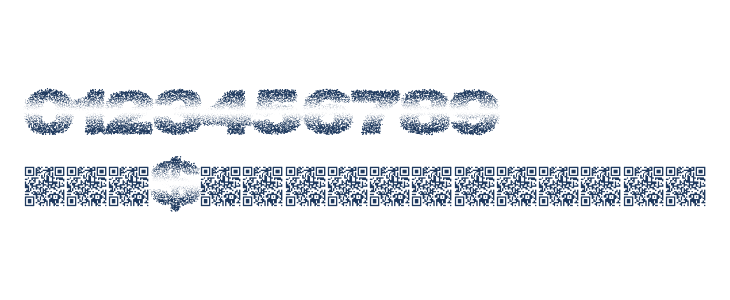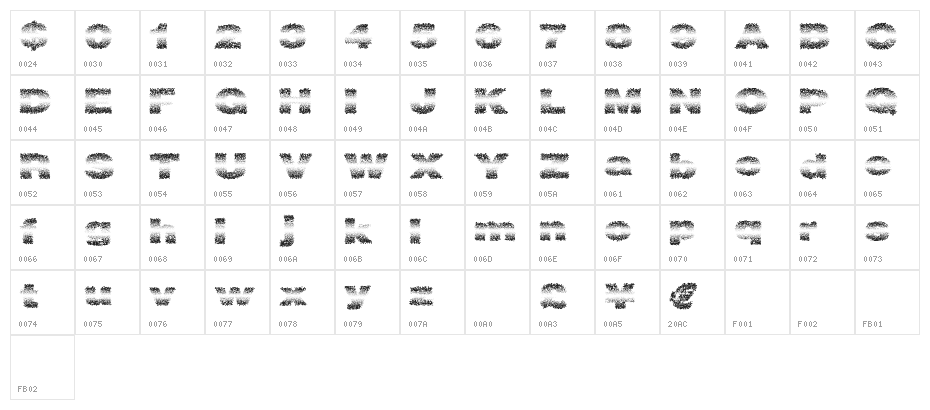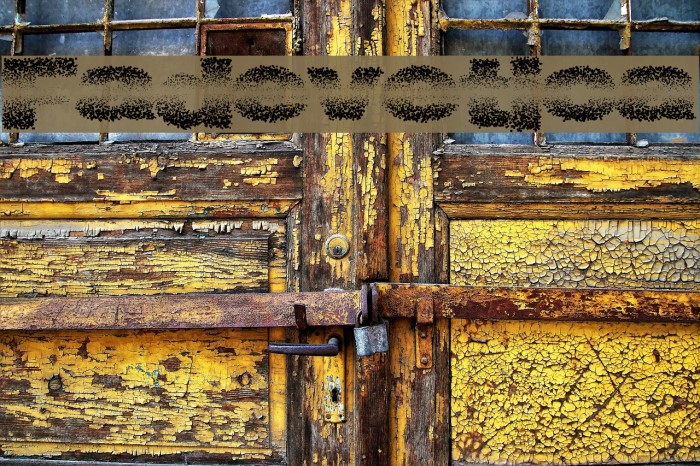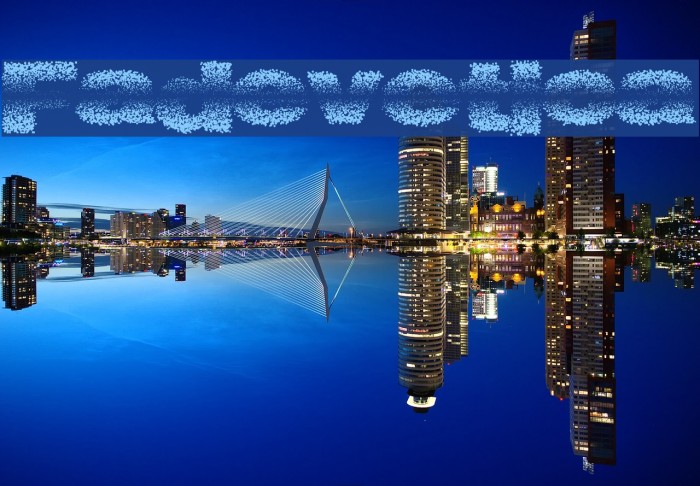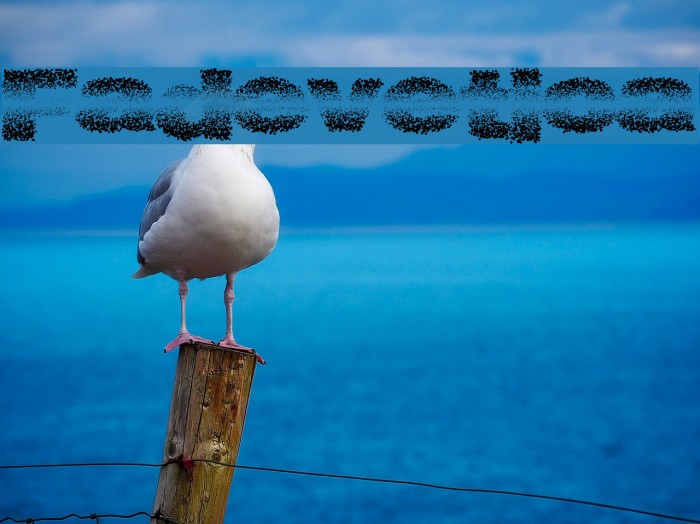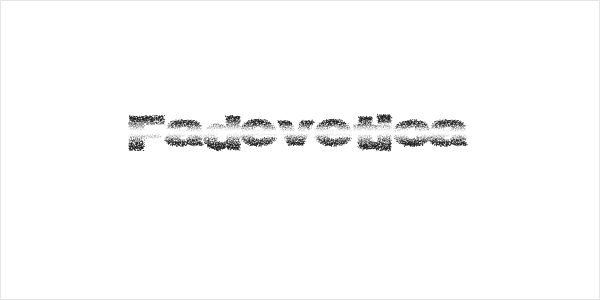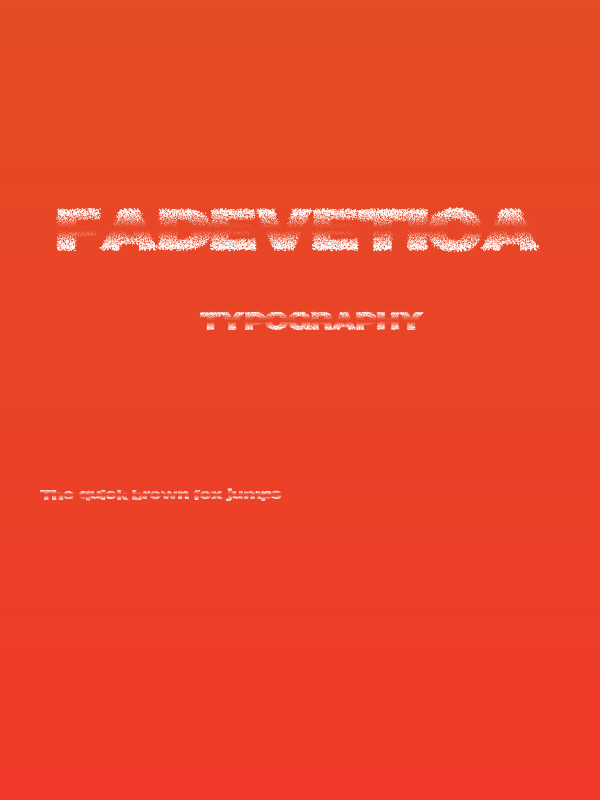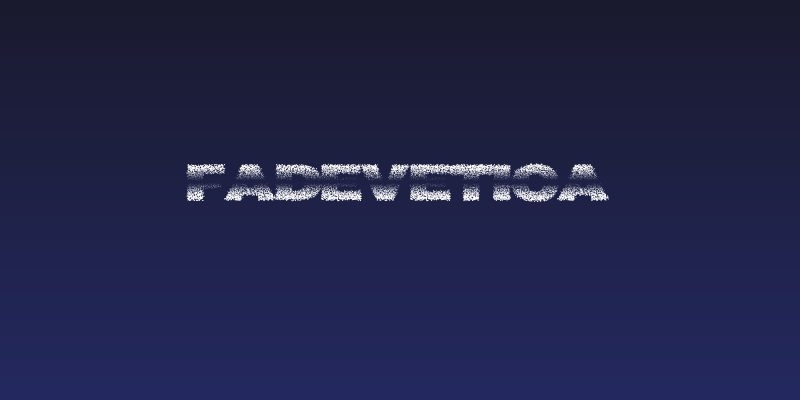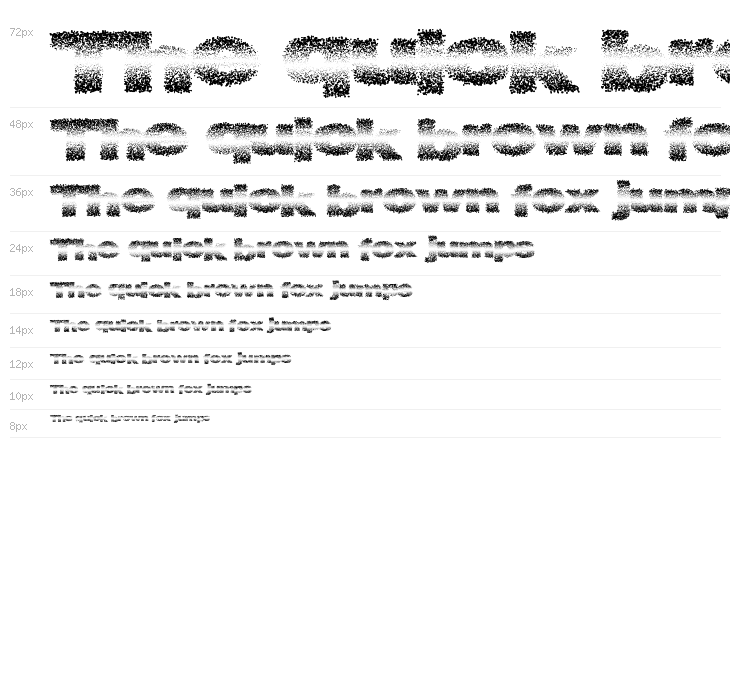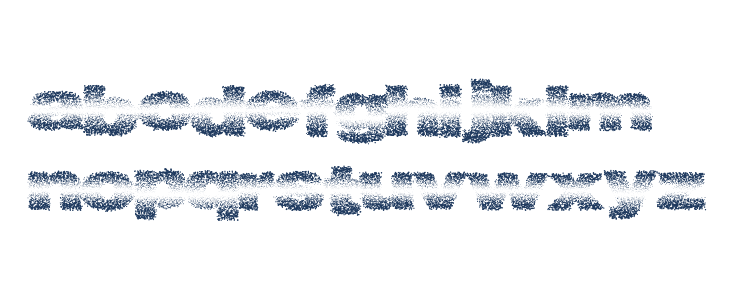
Fadevetica Font
Fadevetica Description
This font features a unique, textured appearance that gives the impression of fading or dissolving at the edges. The characters are bold and sans-serif, with a modern and artistic flair. The texture adds a dynamic and eye-catching quality, making it suitable for creative and contemporary designs. The uppercase and lowercase letters maintain a consistent style, while the numbers and special characters are equally distinctive, ensuring a cohesive look across all text elements.
| Proposed Projects | Ideal for posters, album covers, digital art, and branding projects that require a modern and artistic touch. |